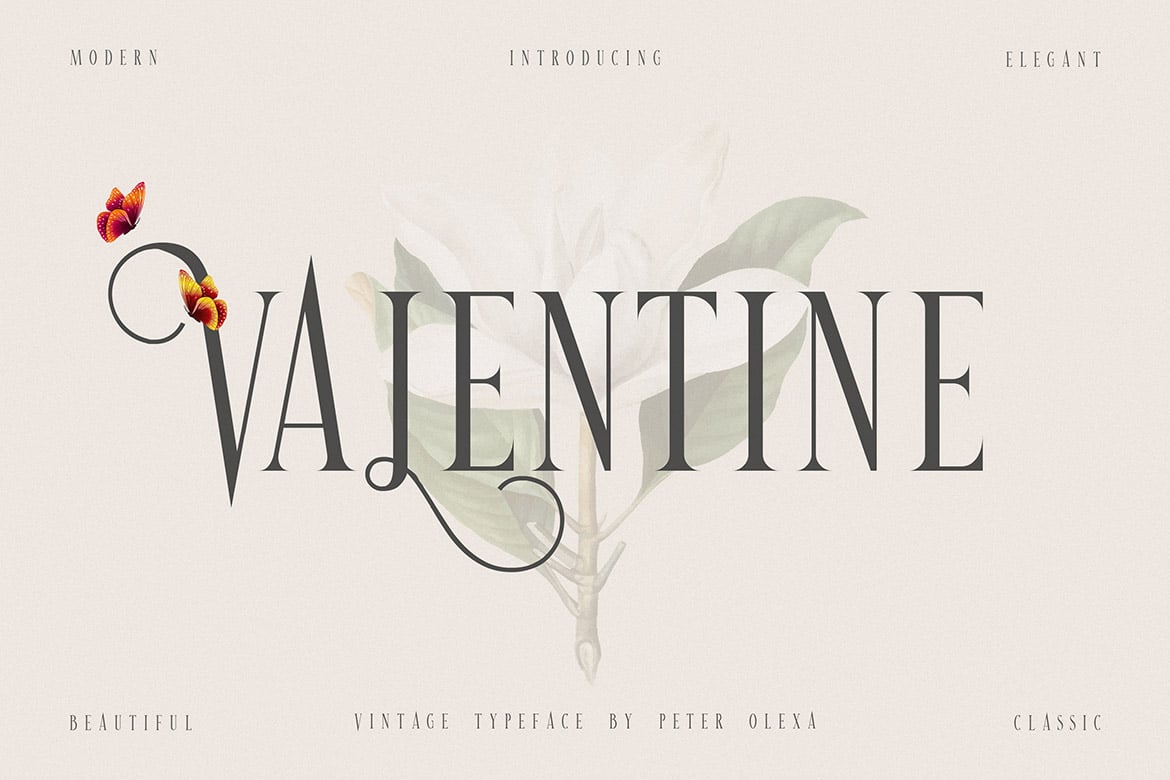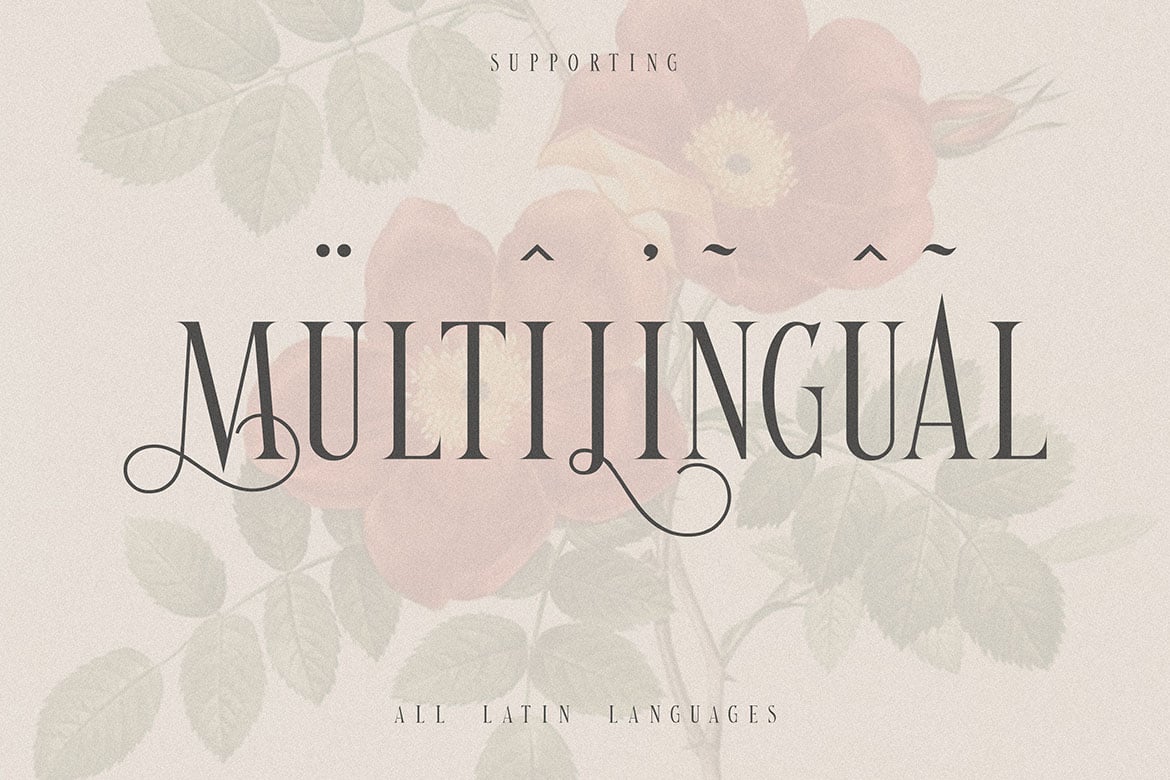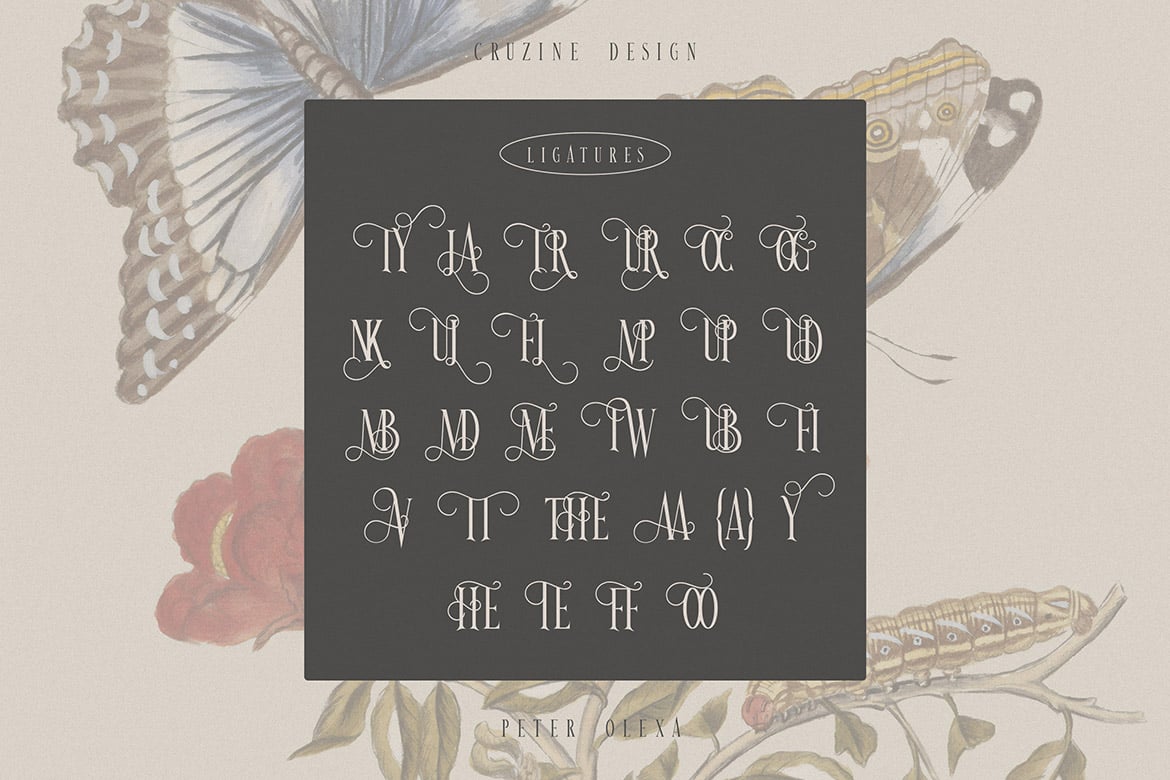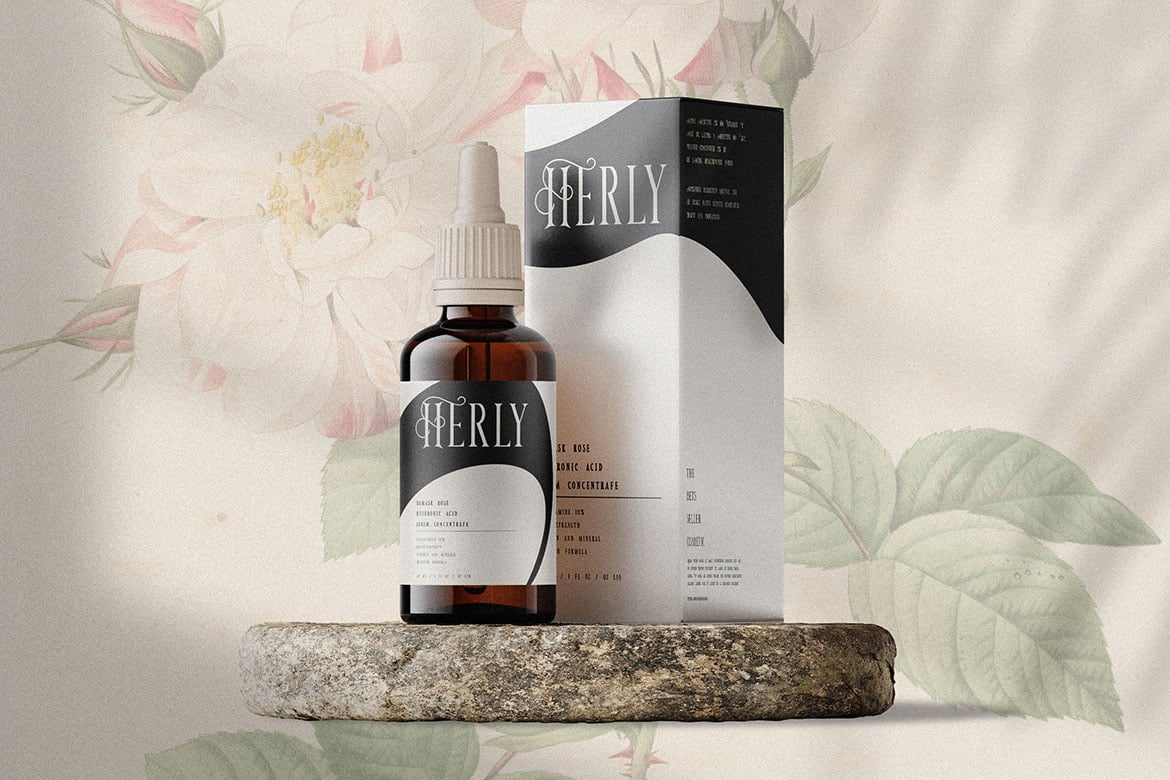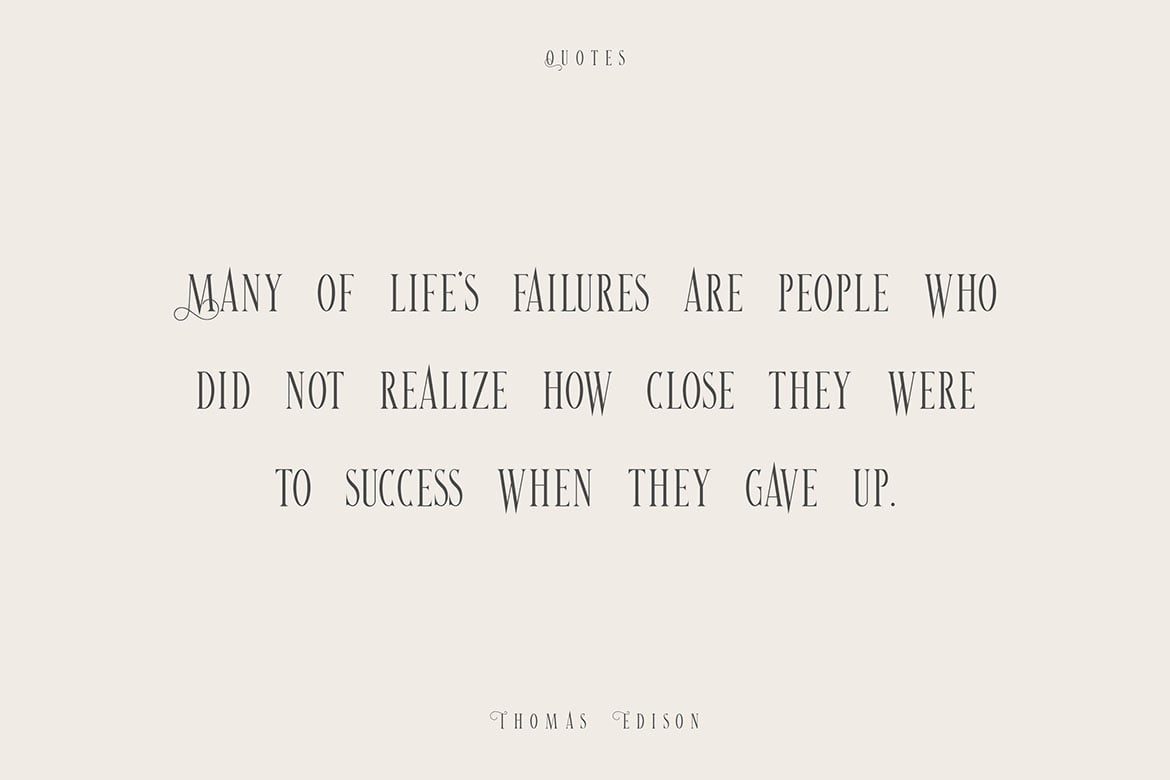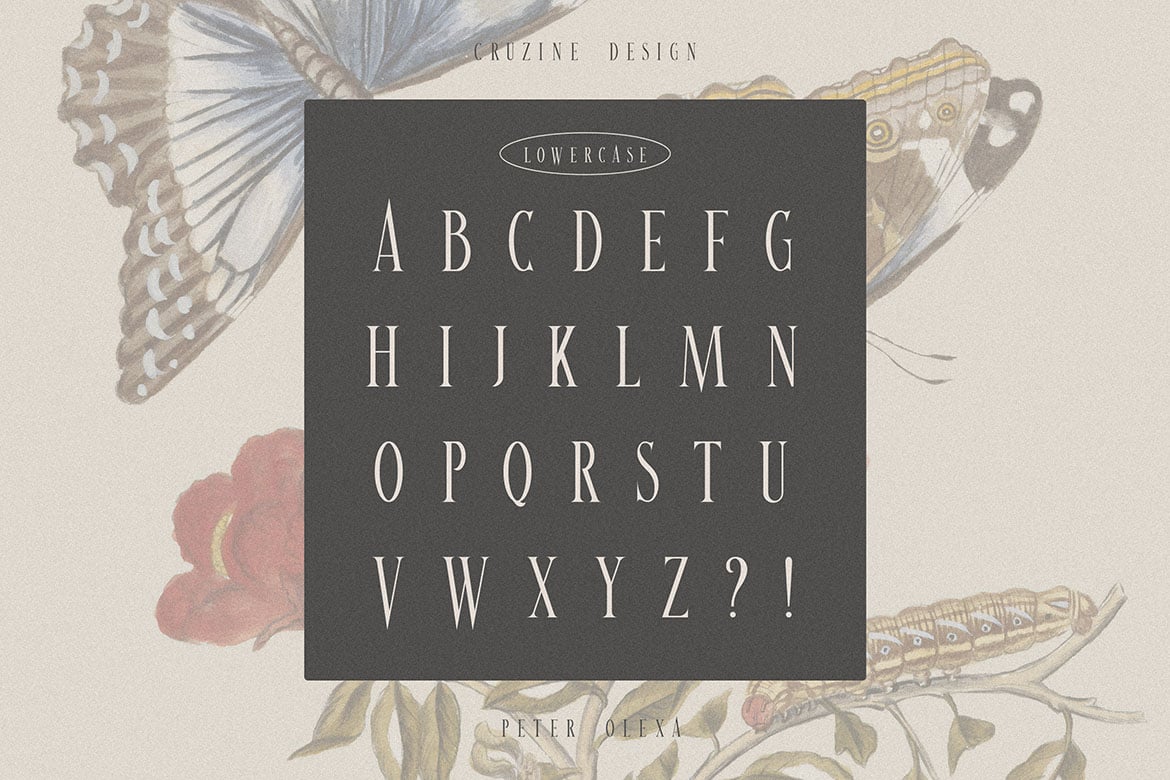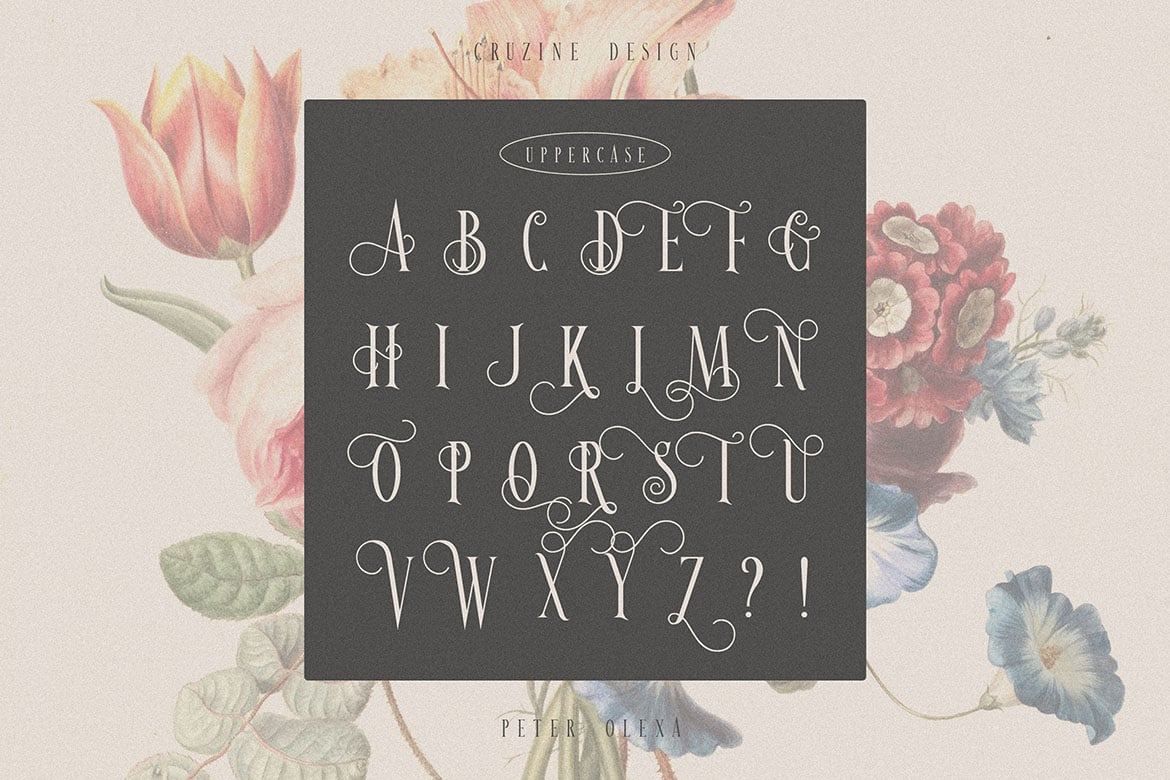
Valentine Vintage Font
Unique condensed, vintage & decorative serif font. Comes with multilingual support & ligatures – great for your new logo or branding project.
- Great for retro or vintage style branding projects